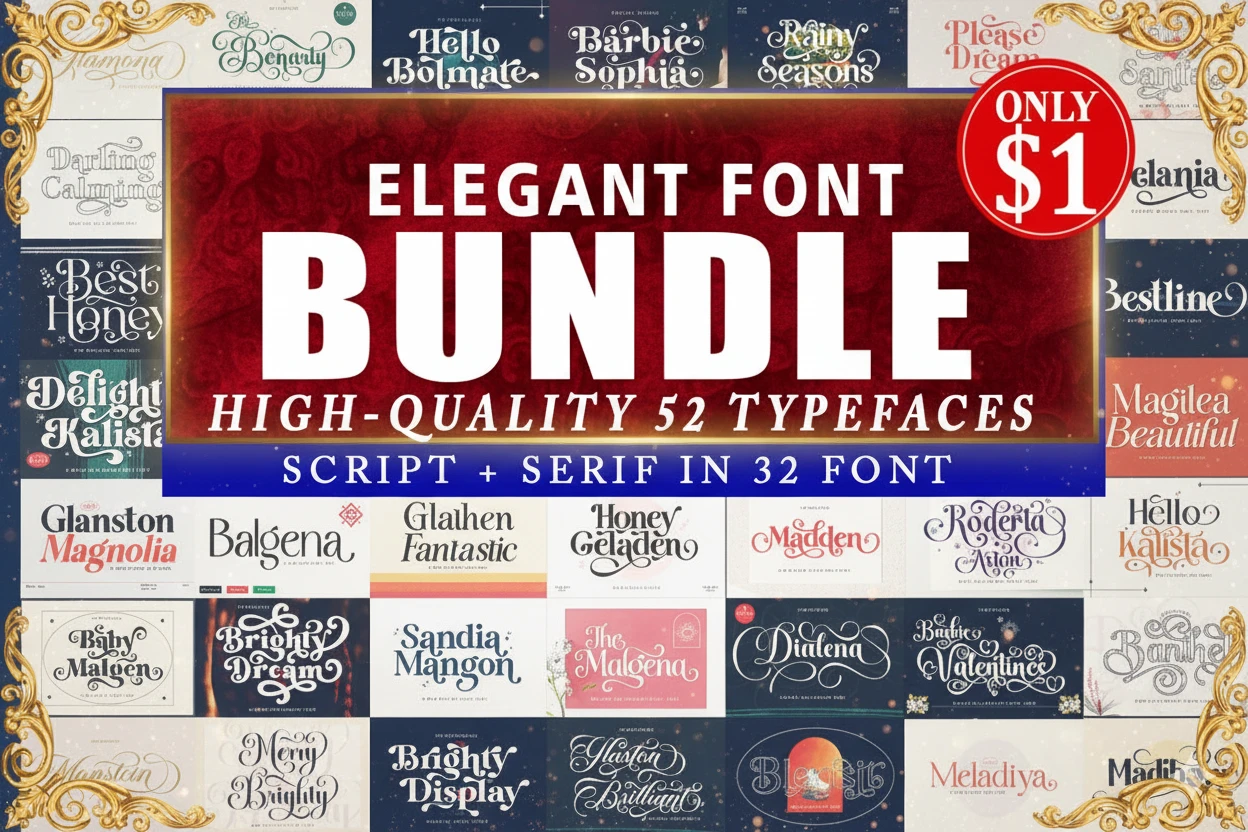
Elegant Font Bundle – 32 Premium Script & Serif Fonts
Bring a more polished, refined feel to your design projects with the Elegant Font Bundle — a thoughtfully curated set of 32 premium script and serif fonts made for both creative and professional work.
What stood out to me with this collection is the balance. Some font bundles lean too heavily into decorative scripts that look nice in previews but become difficult to use in real projects. This one mixes elegant script fonts with clean serif styles, so it’s actually practical for branding, packaging, invitations, social graphics, and editorial layouts.
The script fonts have smooth curves and natural flow without feeling overly formal, while the serif options add structure and readability. That combination works especially well for luxury-style branding, wedding stationery, beauty packaging, café menus, boutique logos, and Pinterest-style promotional graphics.
I can also see these fonts working nicely for:
- Product packaging
- Social media quotes
- Fashion branding
- Candle or skincare labels
- Printable templates
- Website headers
- Magazine-inspired layouts
A small thing I appreciated is that the fonts don’t feel identical to each other. Some have a softer handwritten feel, while others lean more modern and editorial. That variety makes the bundle more useful long-term instead of becoming one of those downloads you only touch once.